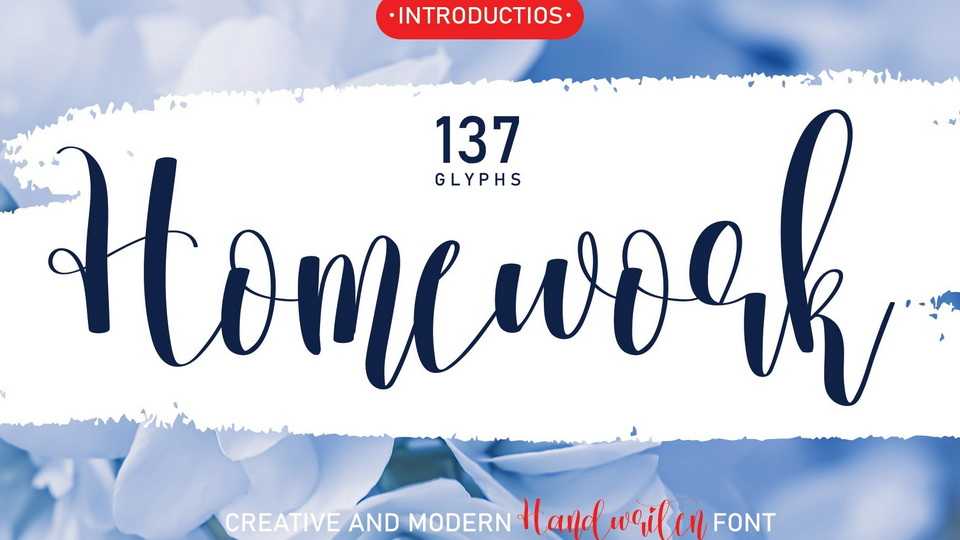
Download Homework font, a lovely handwritten typeface that has a unique and beautiful touch. Homework font is perfect for wall displays, wedding invitations, social media post logos, advertisements and more.